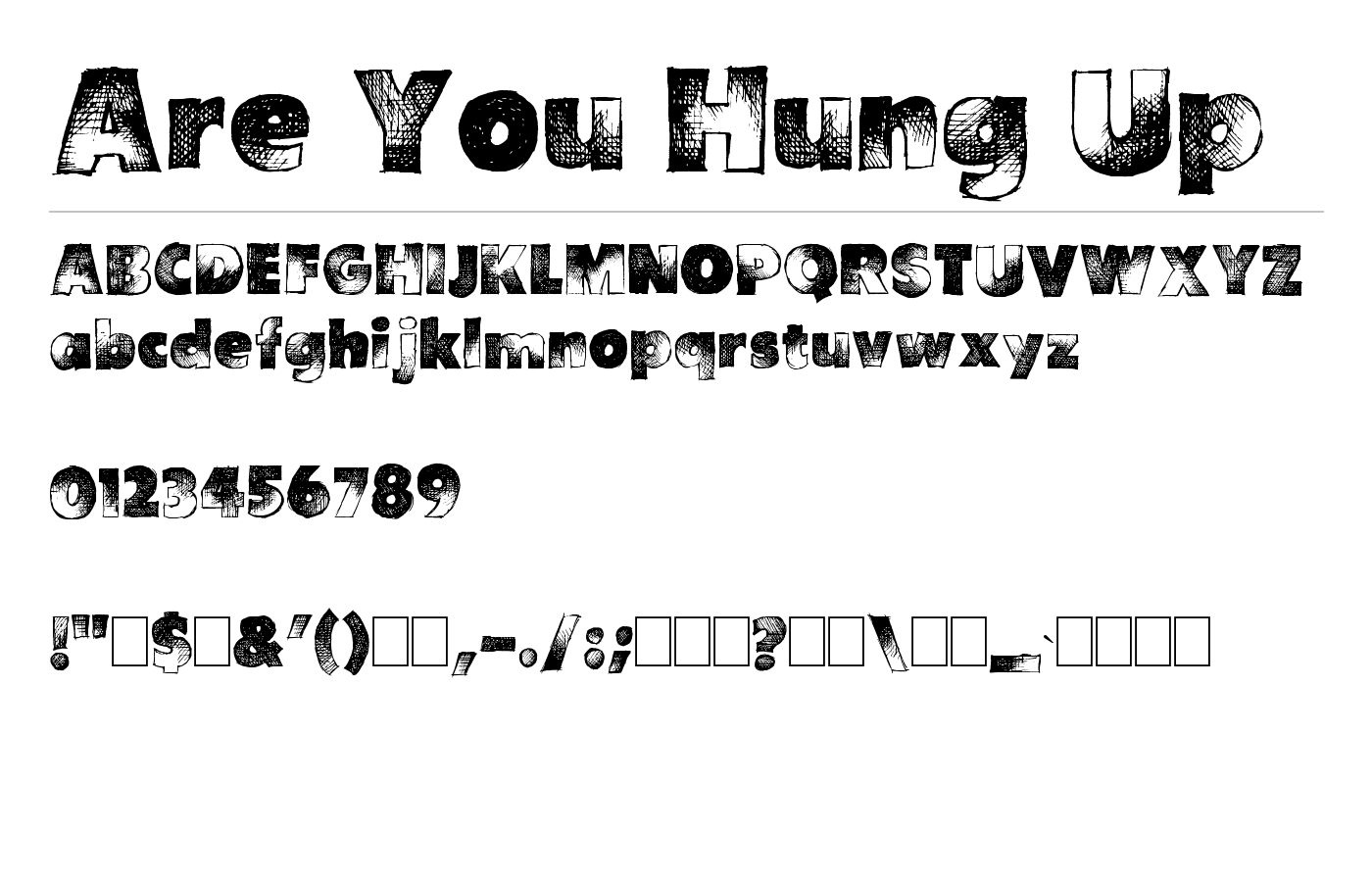
Are You Hung Up is a bold, playful display font with a hand-drawn, textured style that gives it a quirky and artistic vibe. Its irregular shading and rough edges create a dynamic, casual feel perfect for making a statement. This font works best for creative projects like posters, packaging, and branding where a unique, expressive look is desired.
Are You Hung Up Font
About Are You Hung Up Font